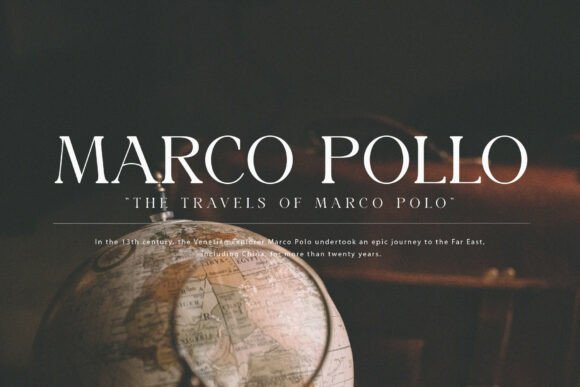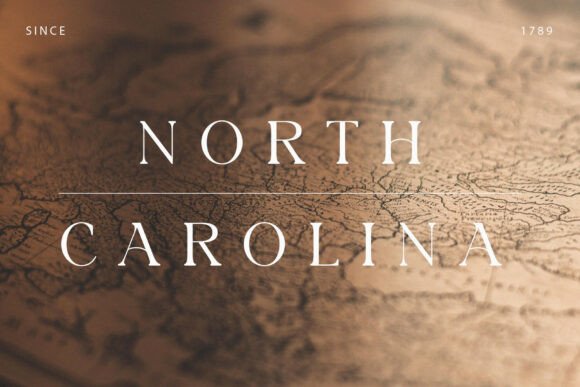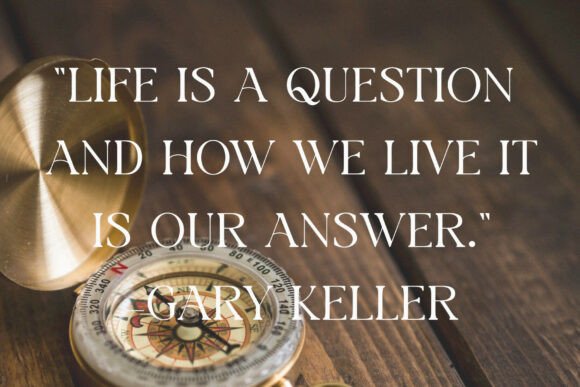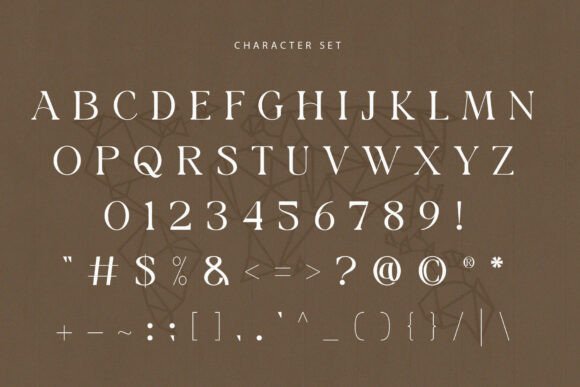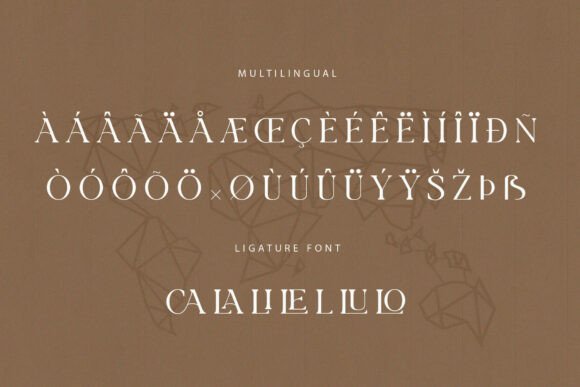
Cakelan Font: A Bold and Authoritative Take on Modern Serif
In the world of typography, fonts play a crucial role in conveying the tone and personality of a brand, product, or service. For designers and crafters, selecting the right font can make all the difference in creating a lasting impression. One font that has gained significant attention in recent times is Cakelan, a modern serif font that exudes confidence, clarity, and professionalism. In this article, we’ll explore the features and benefits of Cakelan, and why it’s an excellent choice for various design projects.
The Cakelan Advantage
Cakelan offers a bold, authoritative take on the modern serif, making it an ideal choice for designers seeking to create a strong visual impact. Its wide apertures and sturdy, wide-set structure command space with confidence and clarity, ensuring that the text is easily readable and engaging. The font’s clean lines and professional weight make it exceptionally versatile, suitable for a wide range of applications, from corporate identities and educational journals to stylish stationery and web headers.
Key Features of Cakelan Font
• Wide Apertures: Cakelan’s wide apertures ensure that the text is easily readable, even at smaller font sizes. This feature is particularly useful for body text, where clarity and legibility are paramount.
• Sturdy Structure: The font’s sturdy, wide-set structure provides a sense of stability and confidence, making it perfect for headlines, titles, and other display text.
• Clean Lines: Cakelan’s clean lines and minimal ornamentation give the font a professional and modern look, suitable for a wide range of design projects.
• Professional Weight: The font’s professional weight ensures that it’s neither too light nor too heavy, making it easy to read and visually appealing.
Use Cases for Cakelan Font
Cakelan’s versatility makes it an excellent choice for various design projects, including:
• Corporate Identities: Cakelan is perfect for creating a strong, professional brand image. Its bold and authoritative take on modern serif makes it suitable for logos, business cards, and other corporate materials.
• Educational Journals: The font’s clean lines and professional weight make it an excellent choice for academic papers, research journals, and other educational publications.
• Stylish Stationery: Cakelan’s modern and elegant design makes it perfect for stylish stationery, including invitations, greeting cards, and letterheads.
• Web Headers: The font’s wide apertures and sturdy structure ensure that it’s easily readable on digital screens, making it an excellent choice for web headers and titles.
Tips for Using Cakelan Font
To get the most out of Cakelan, here are some tips to keep in mind:
• Pair it with a Sans-Serif Font: Cakelan pairs well with sans-serif fonts, creating a beautiful contrast between the modern serif and clean sans-serif.
• Experiment with Font Sizes: Cakelan’s versatility allows it to be used at various font sizes, from small body text to large display text.
• Use it for Headlines and Titles: Cakelan’s bold and authoritative take on modern serif makes it perfect for headlines and titles, where a strong visual impact is desired.
Cakelan font is a powerful tool for designers and crafters seeking to create a strong visual impact. Its bold and authoritative take on modern serif, combined with its clean lines and professional weight, make it exceptionally versatile for various design projects. Whether you’re creating corporate identities, educational journals, stylish stationery, or web headers, Cakelan is an excellent choice. By understanding the features and benefits of Cakelan, you can unlock its full potential and take your designs to the next level.